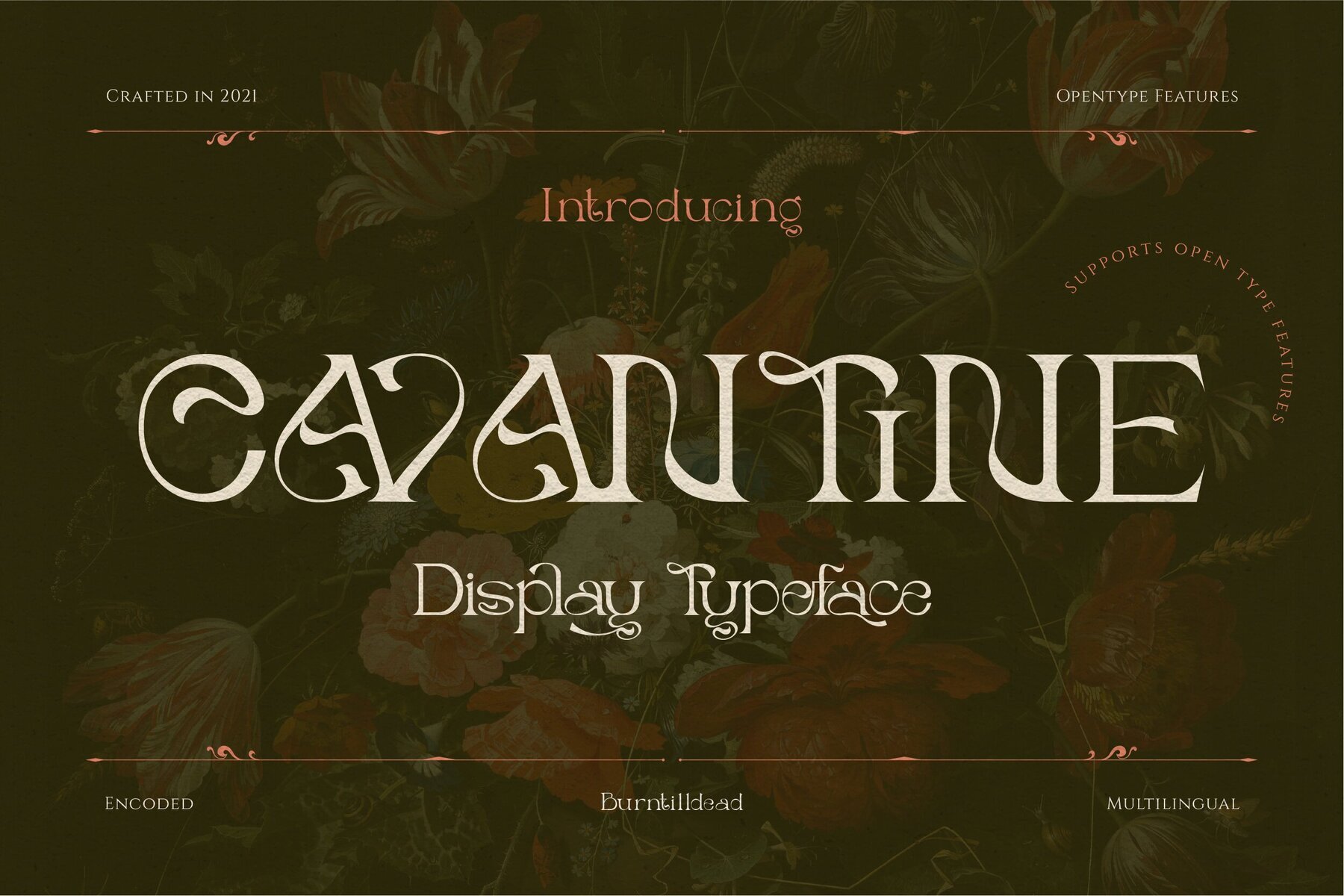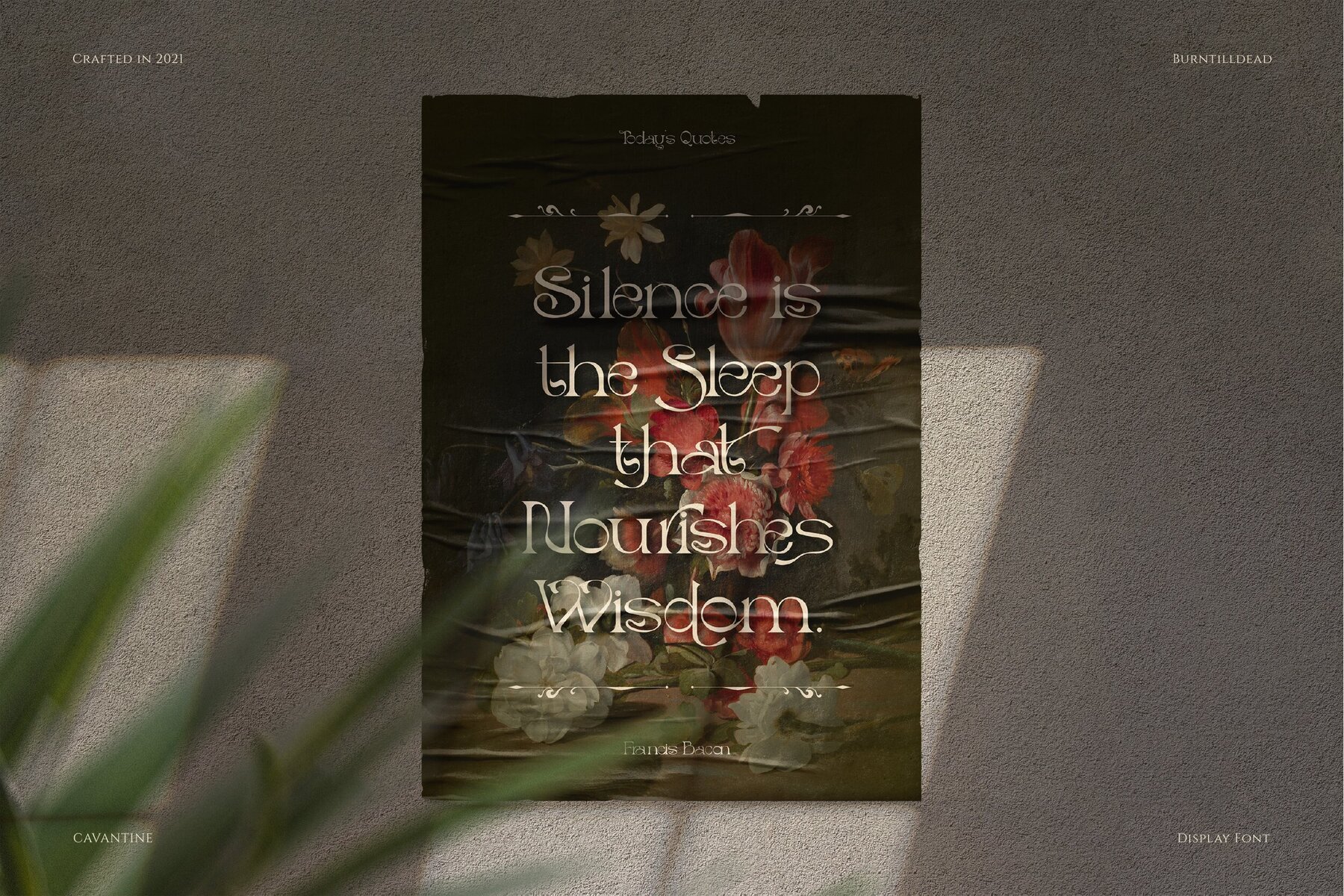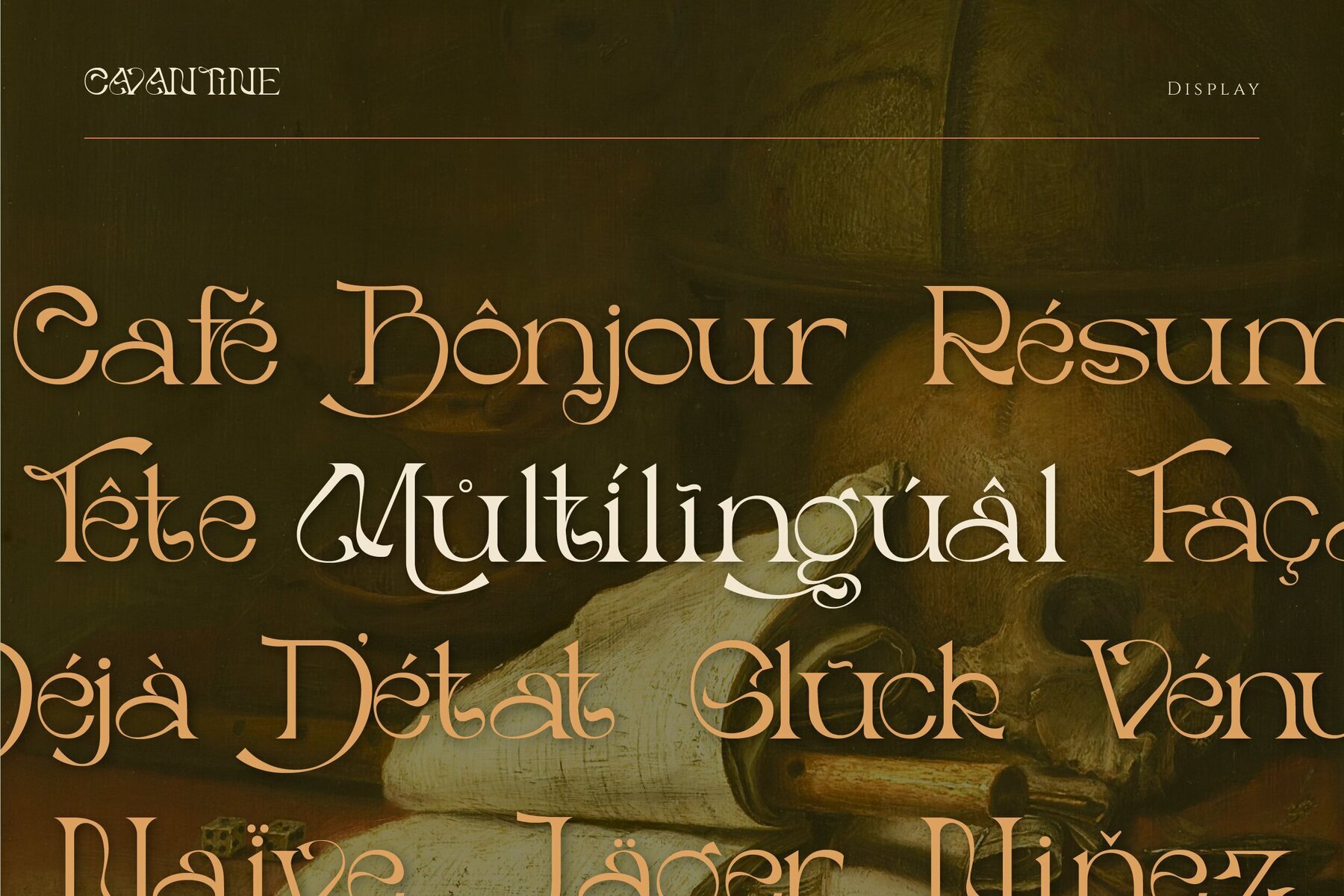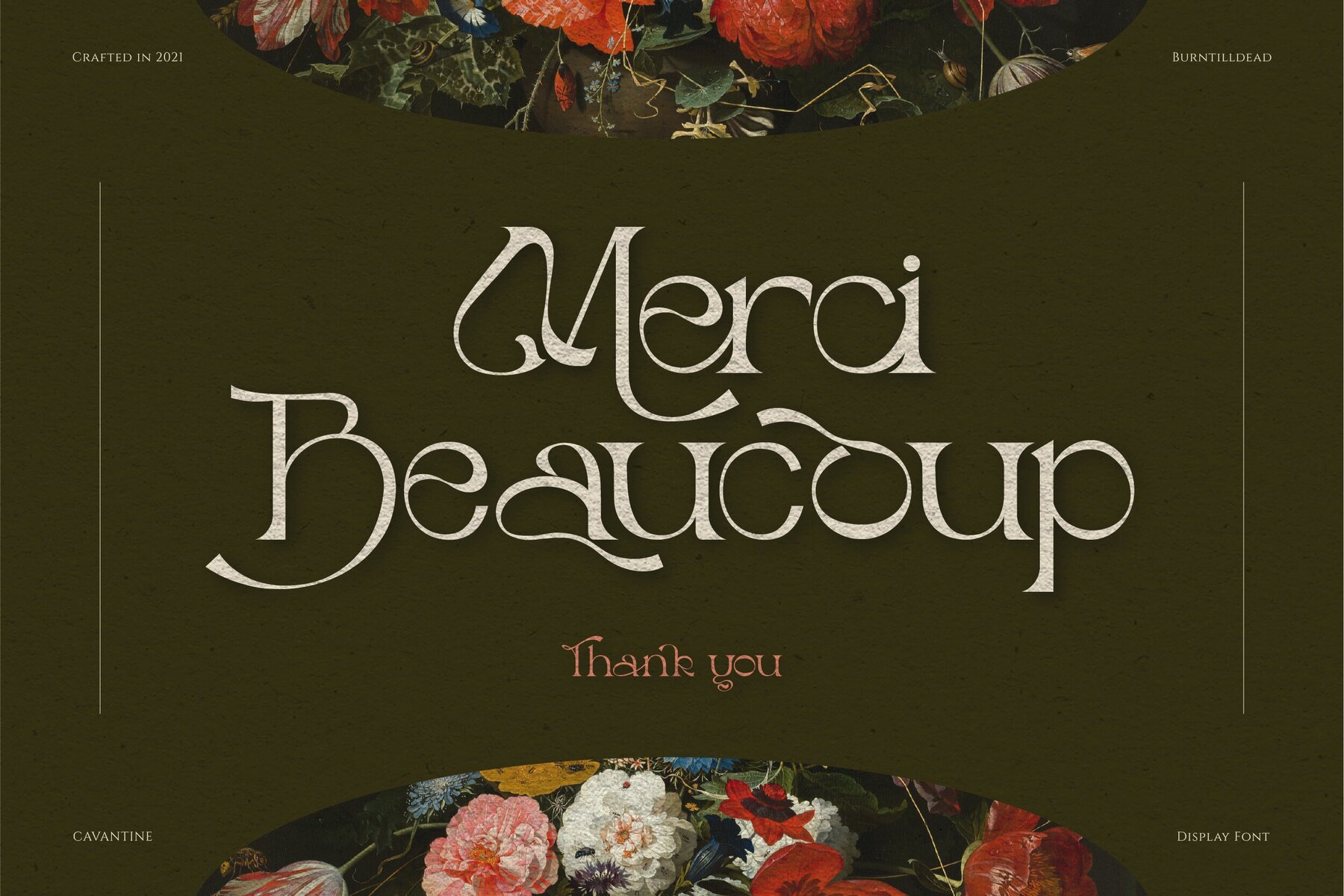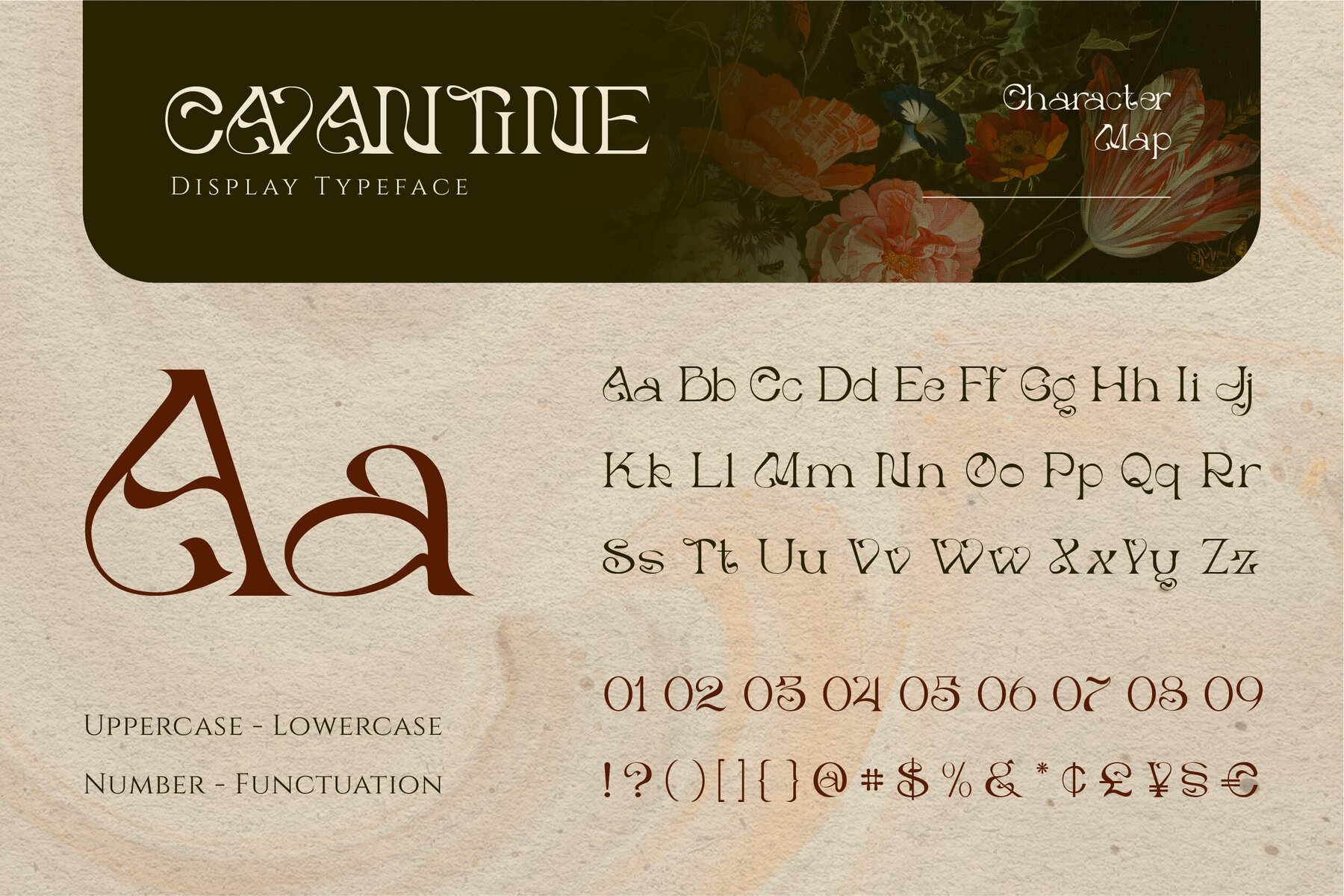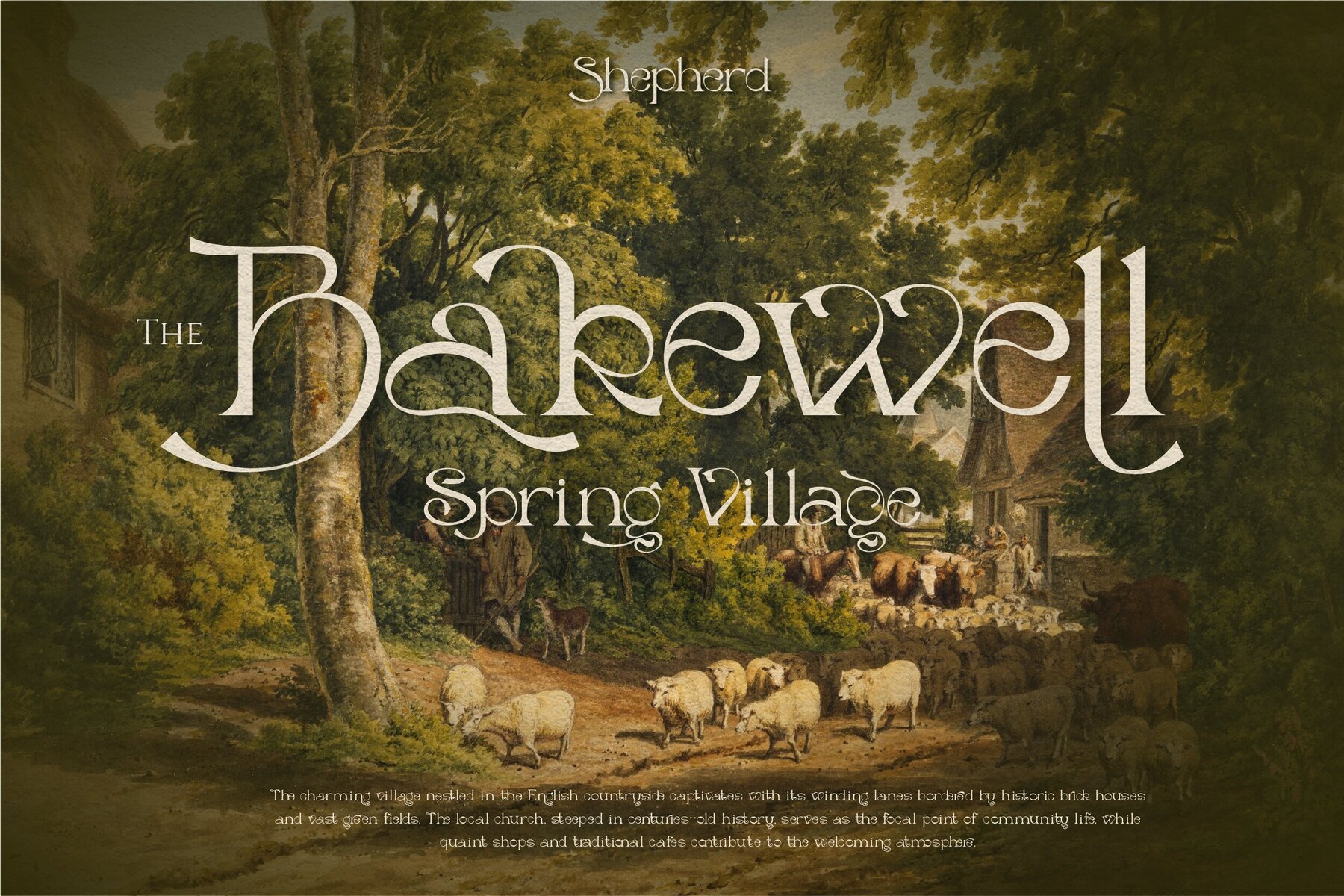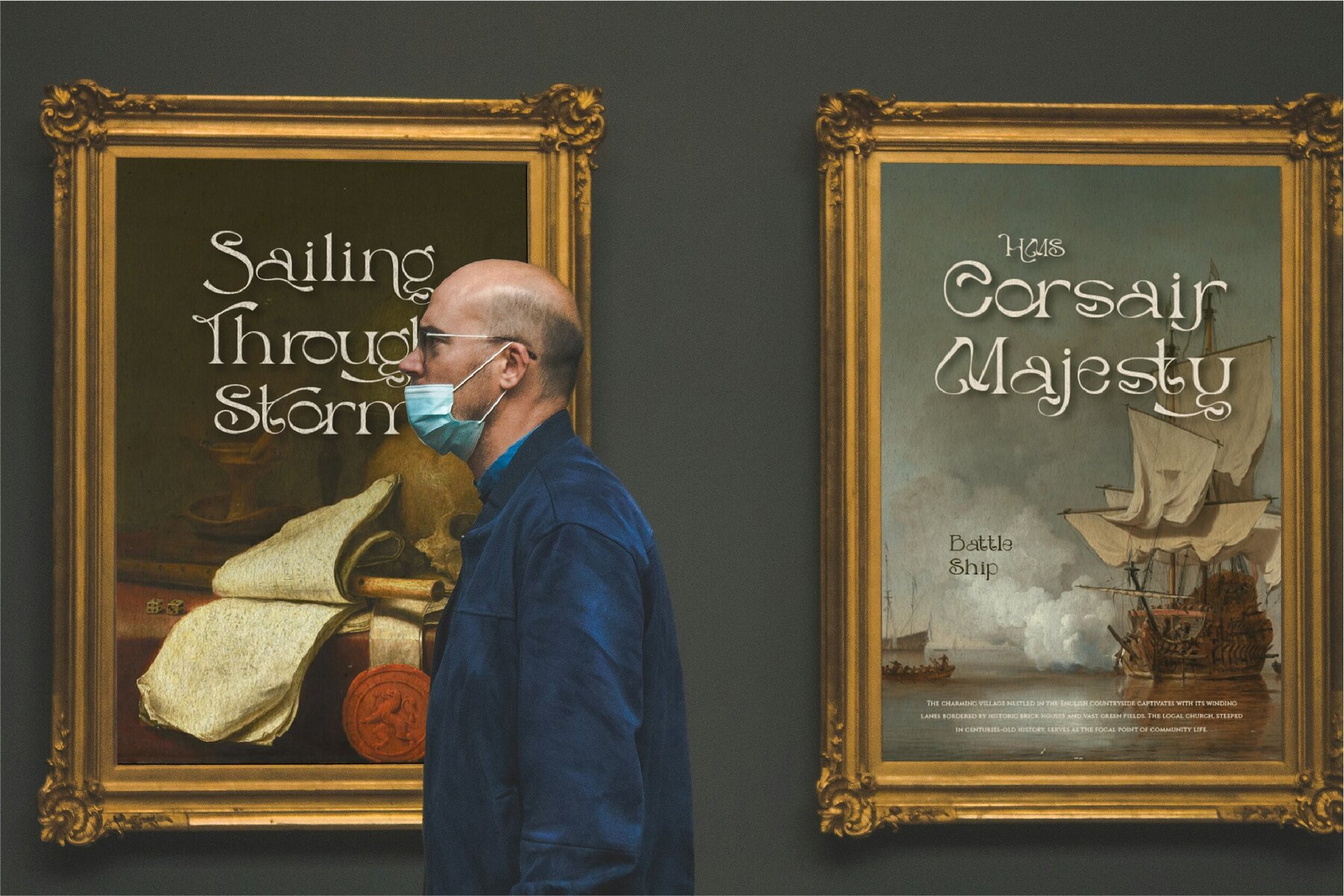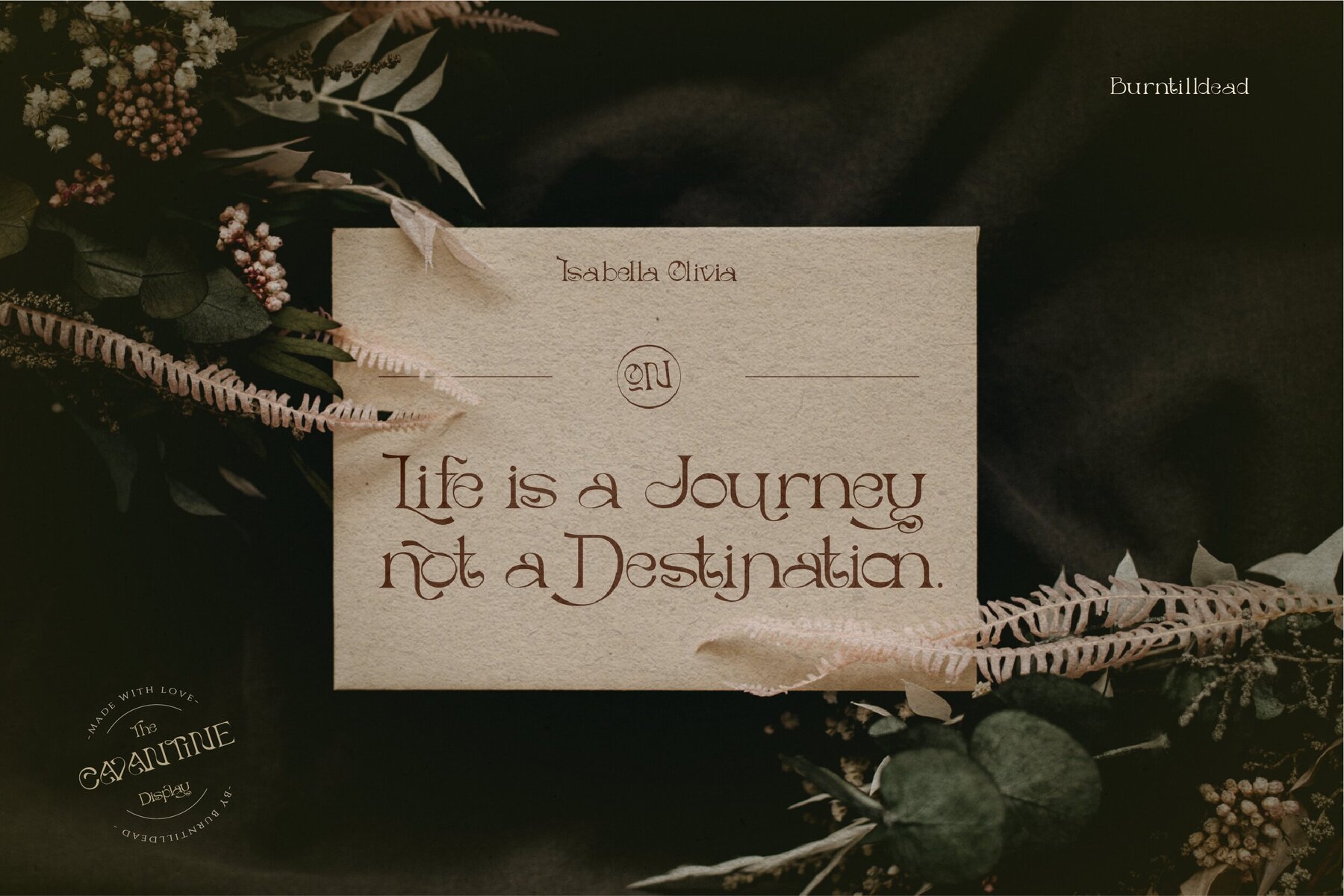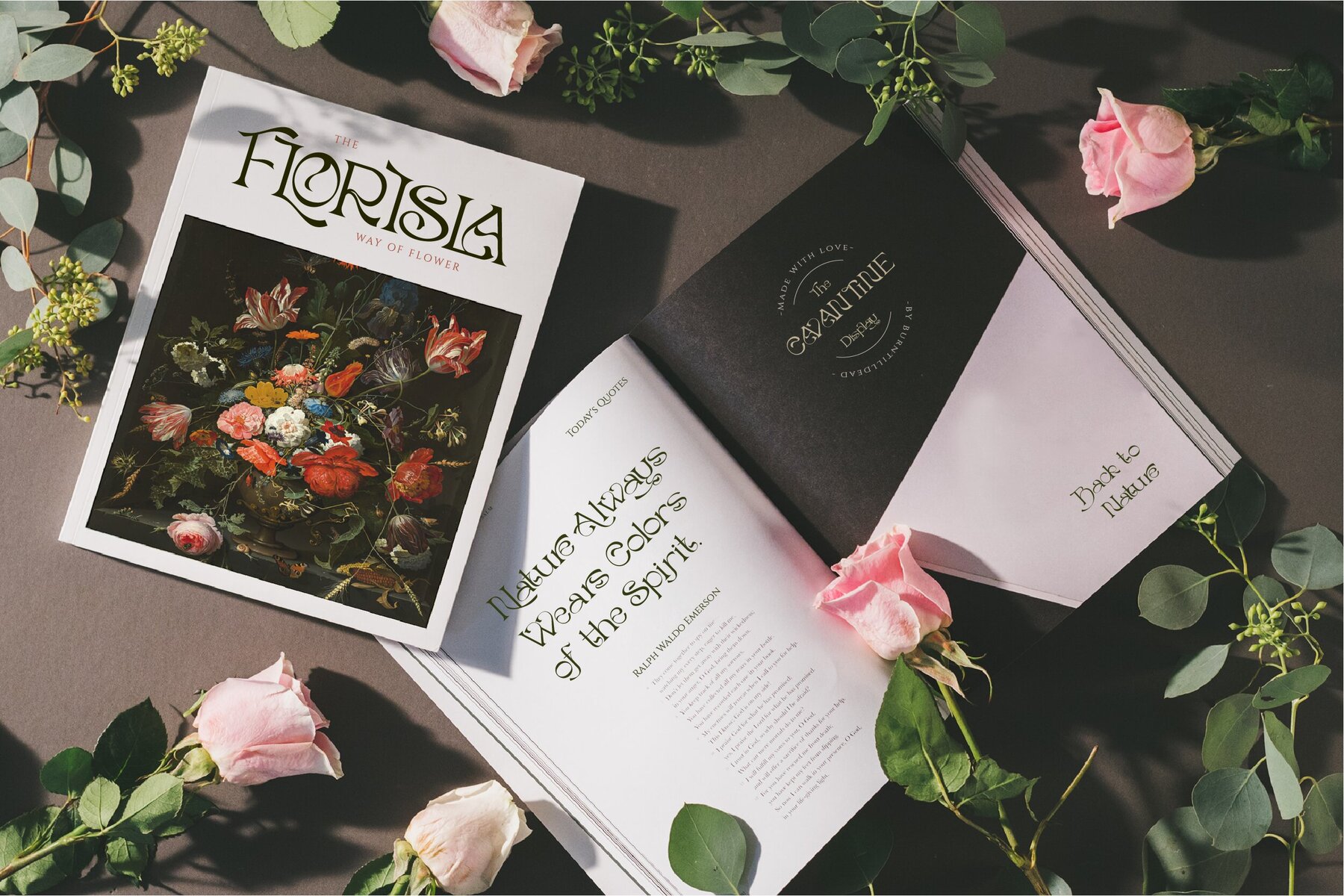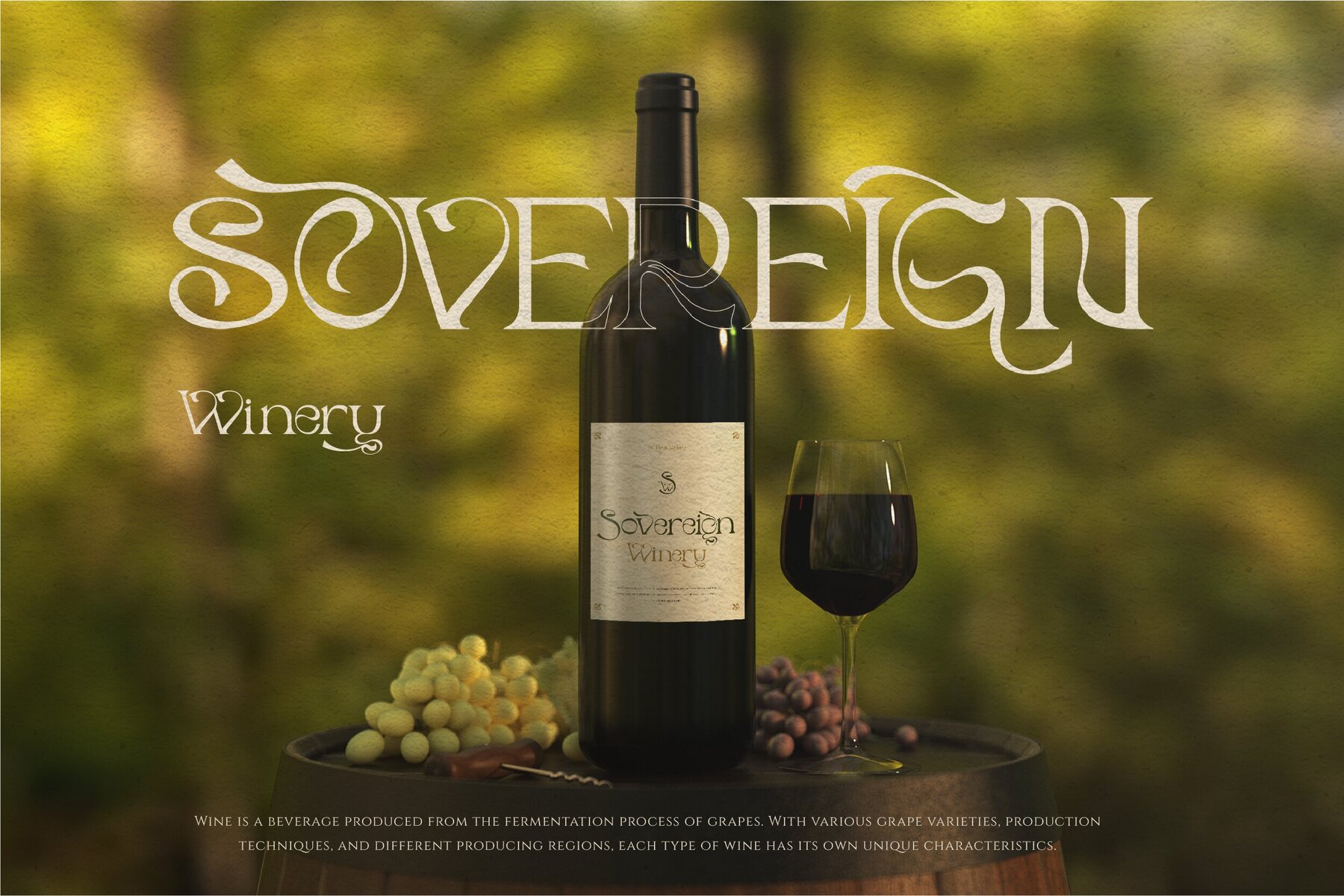
Cavantine Font
Cavantine Regular
Proudley present “Cavantine”. A modern experimental decorate font. Powered with 95 ligatures to bring fluent combination, 74 alternate characters to get dynamic & aesthetic looks. If your application does not feature a glyph palette, We also add the characters map in PDF to help you access hidden alternates available in our OpenType fonts. Simply chose the character on the PDF you want to use to your clipboard, then return to your application and paste while using the appropriate Glitcher font. Perfect and suitable for branding, headline, logotype, sticker, editorial design, and etc. Features: